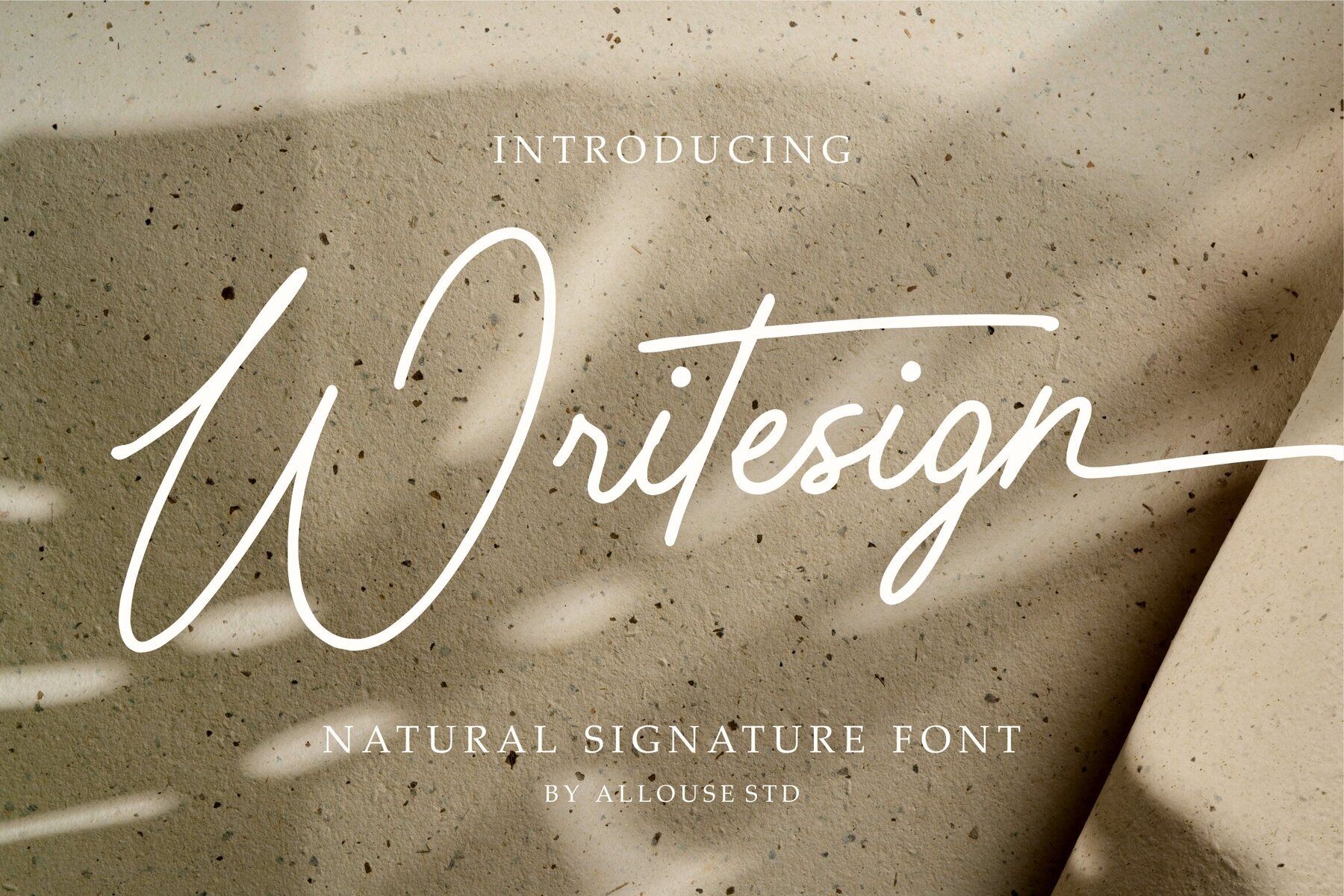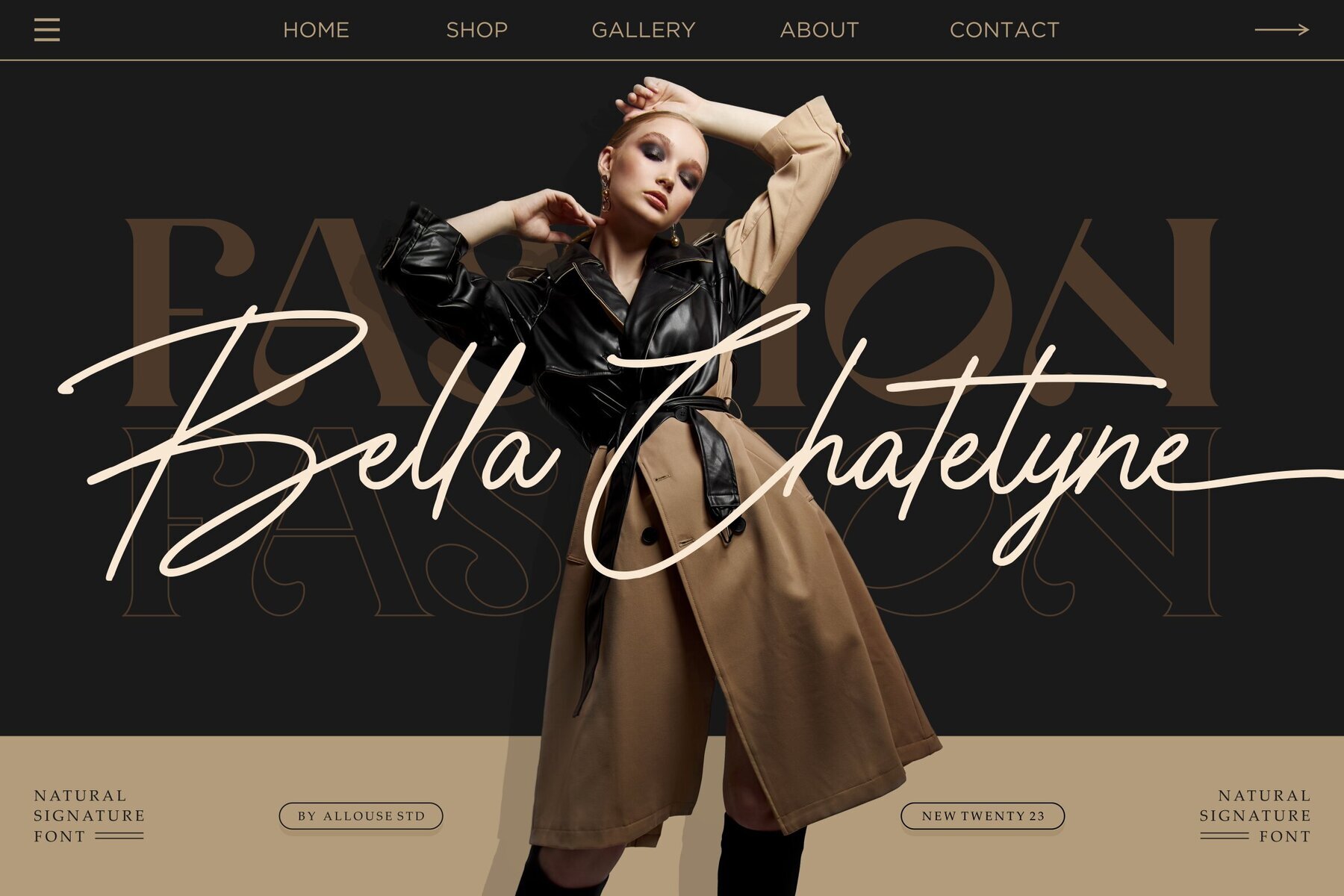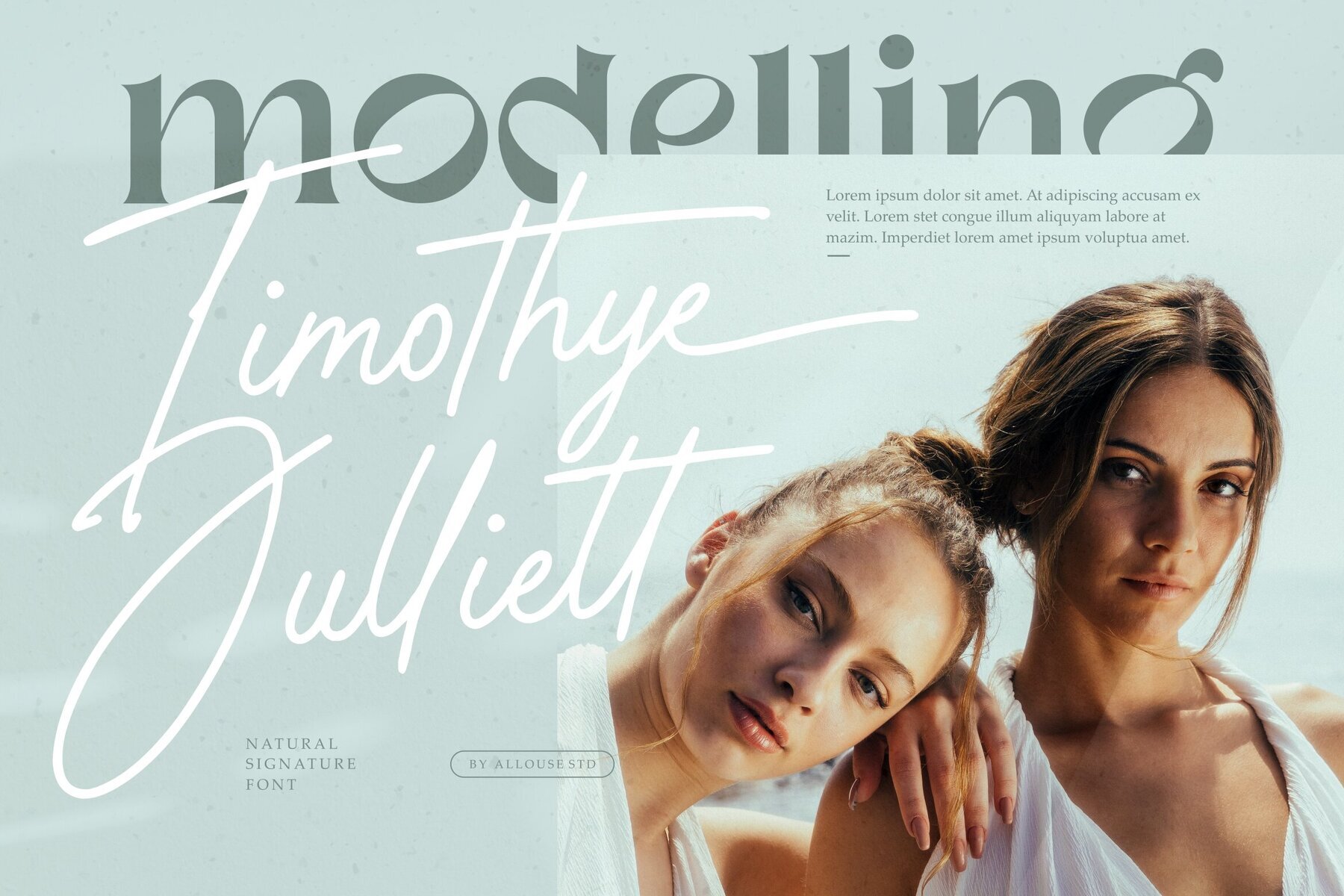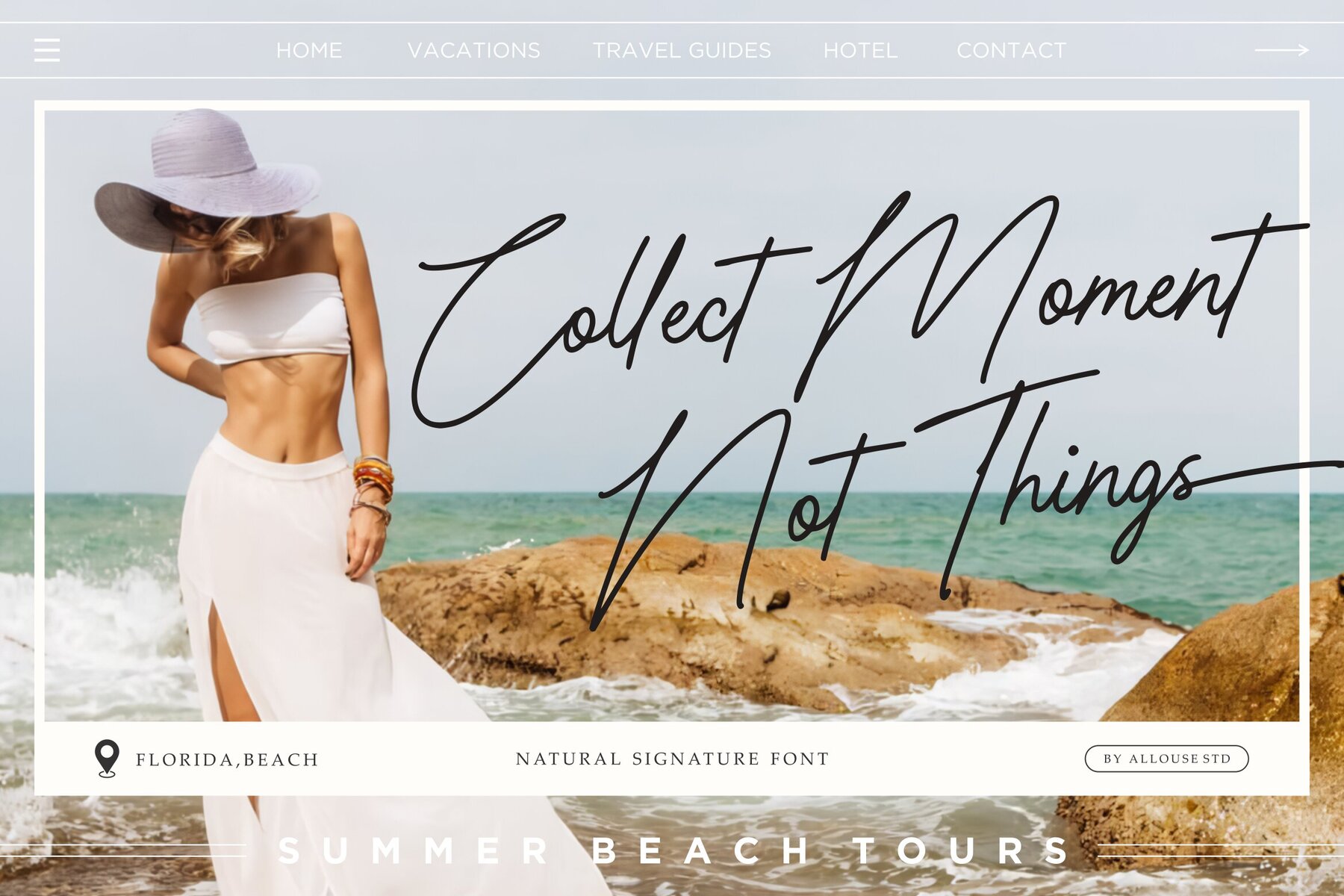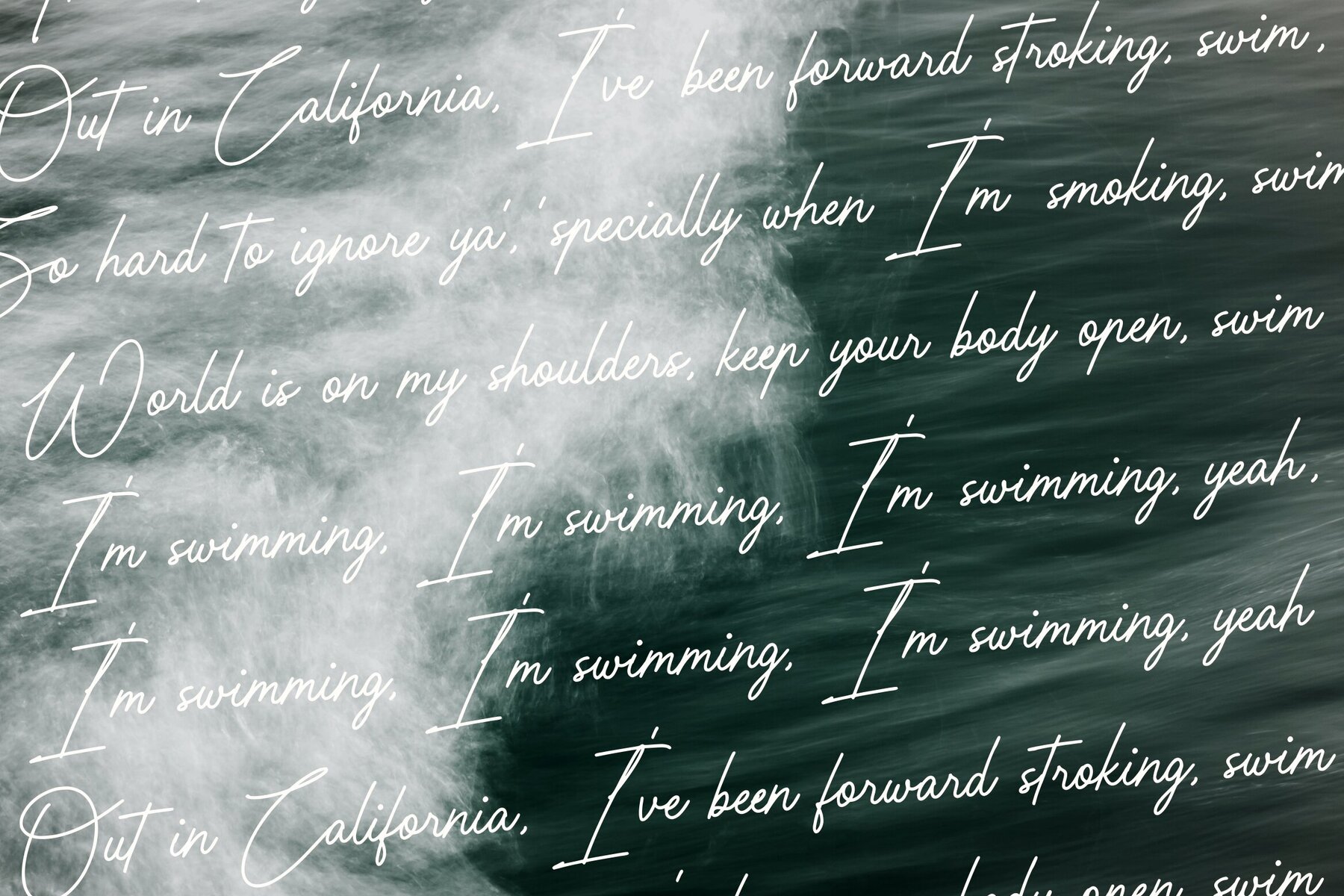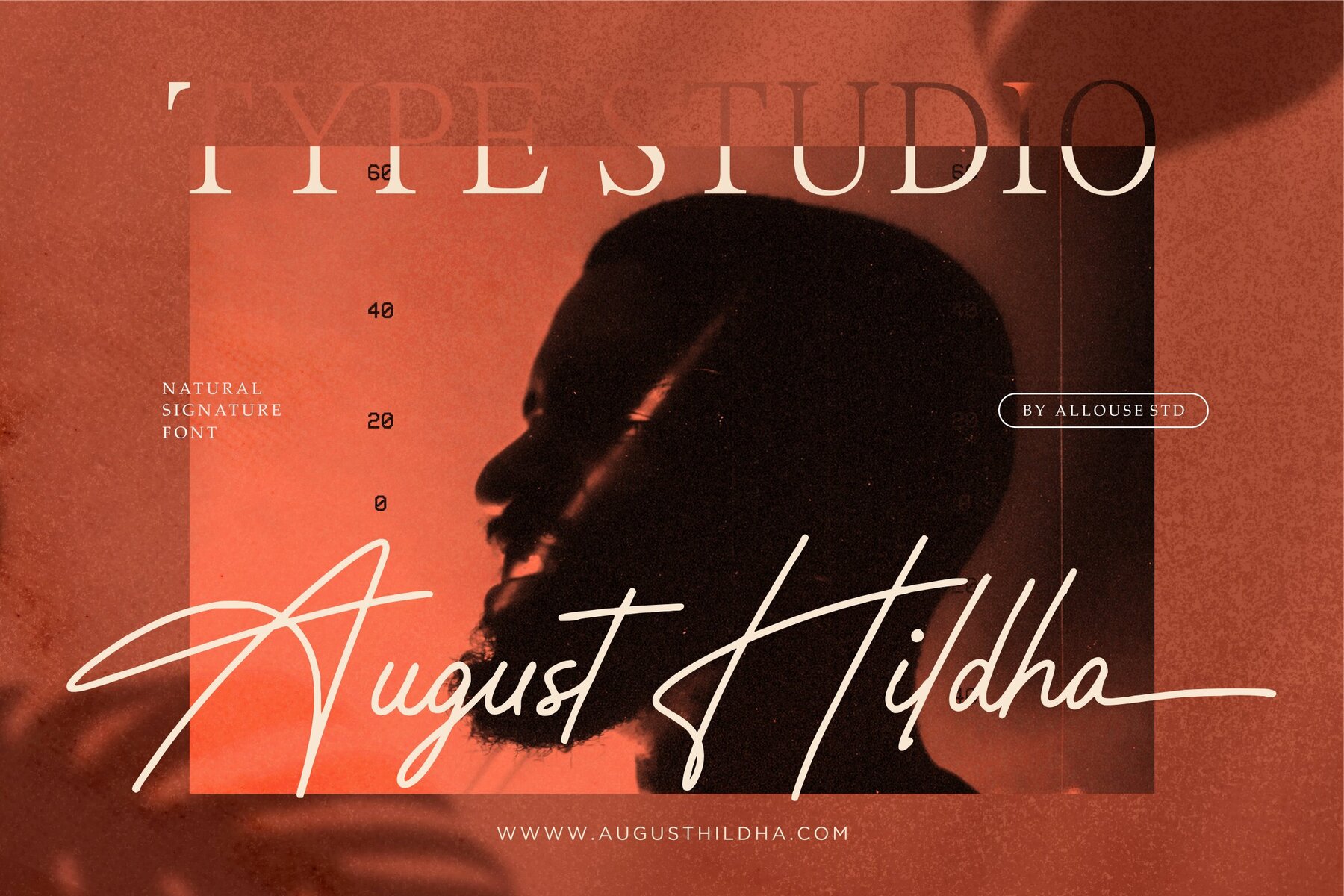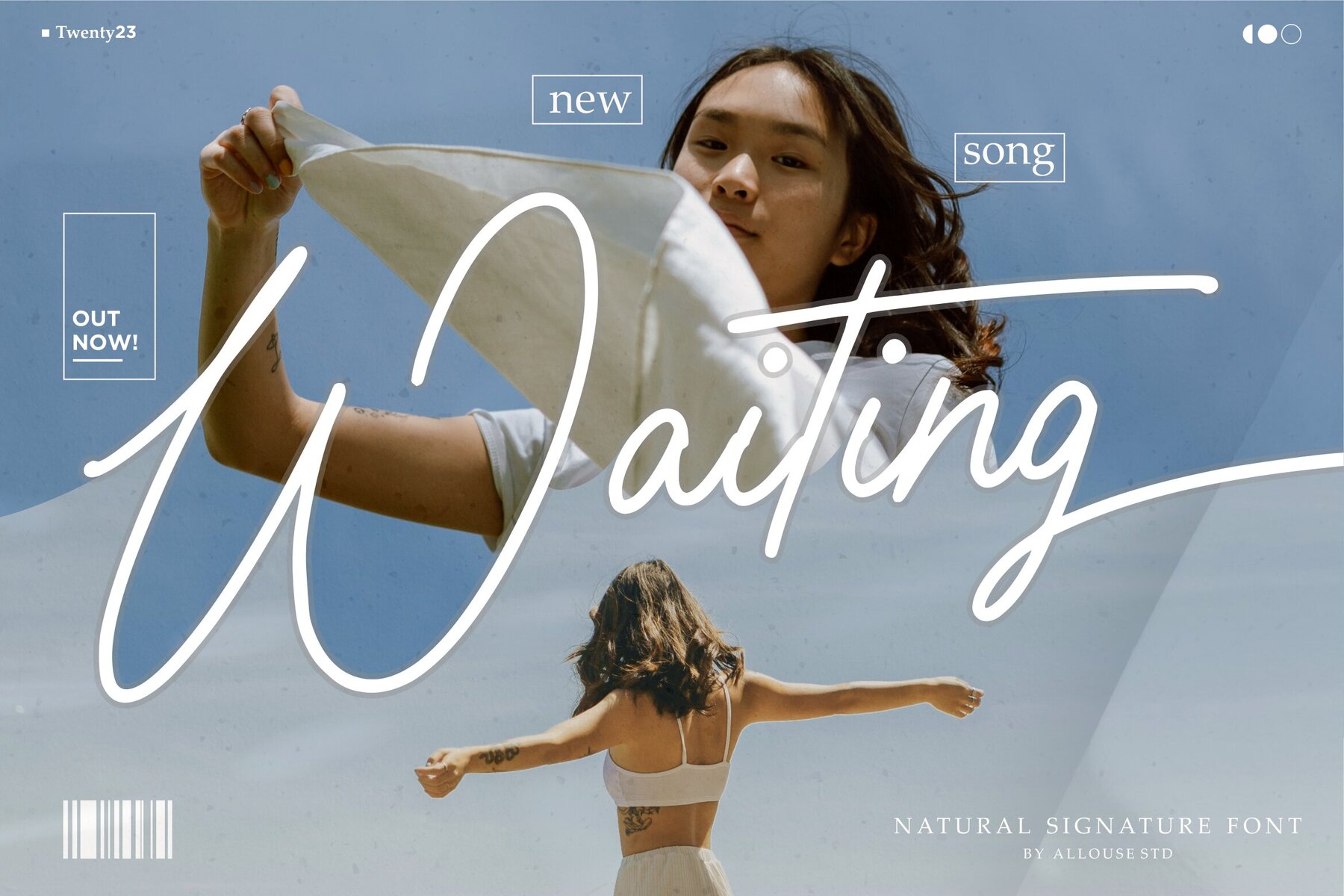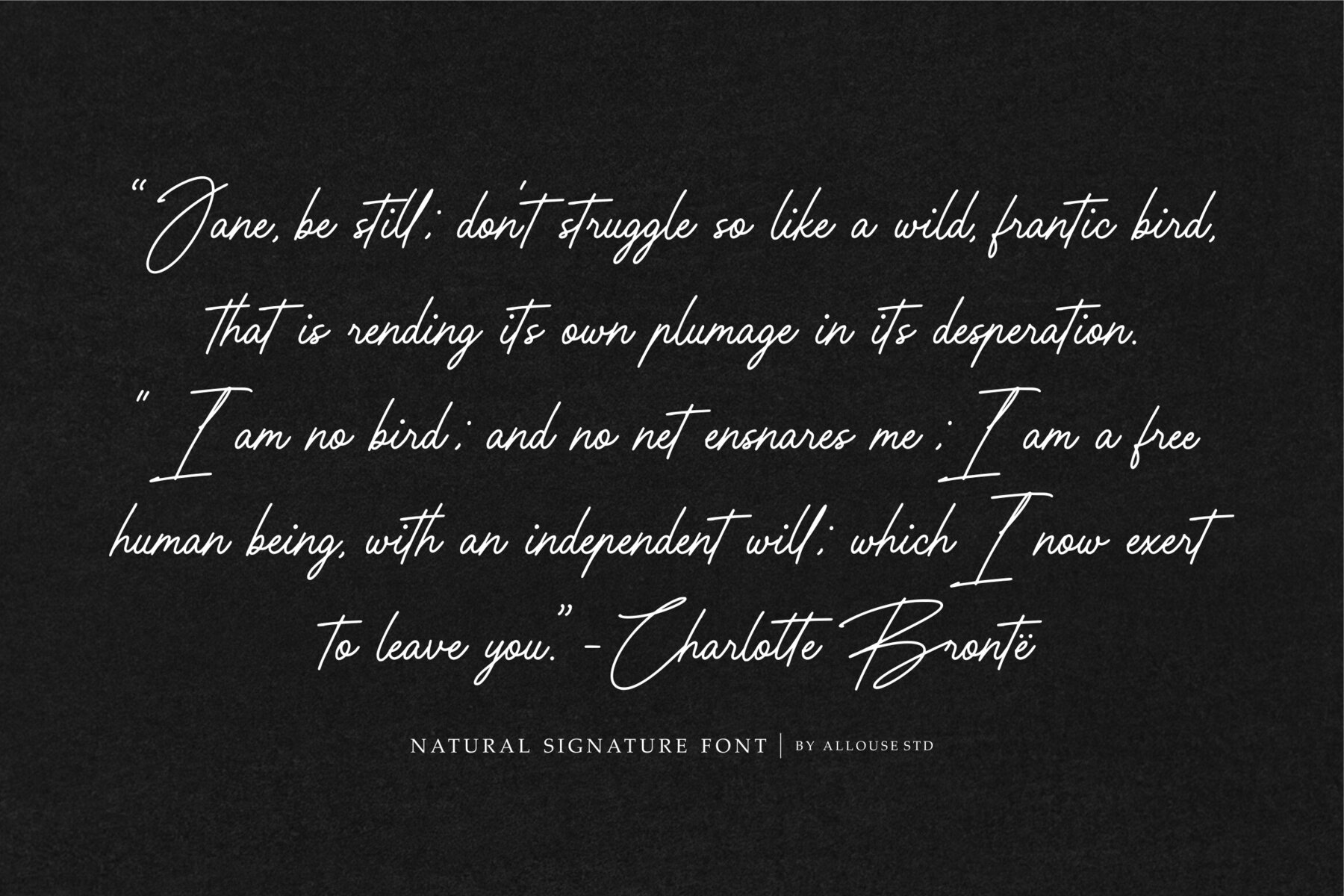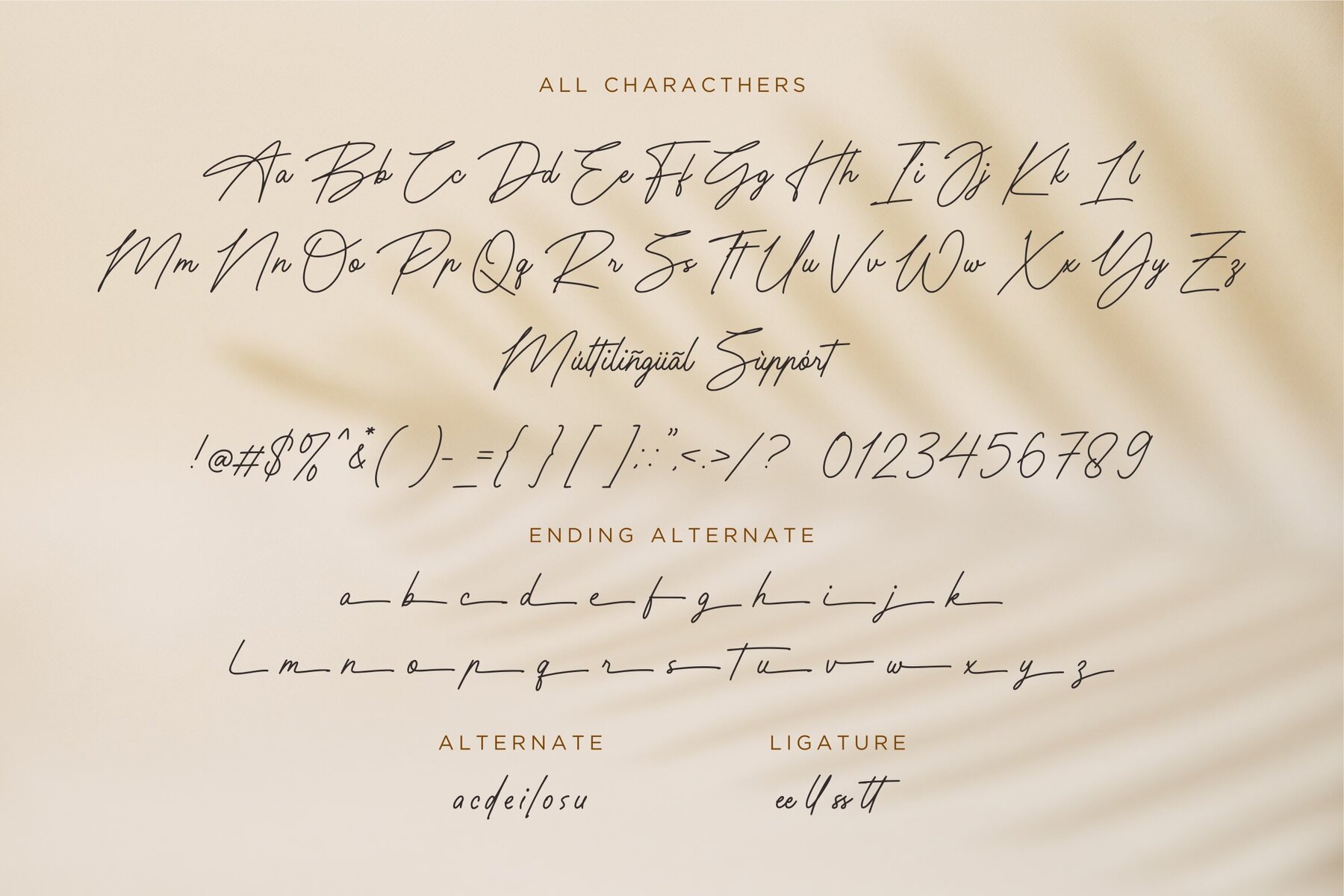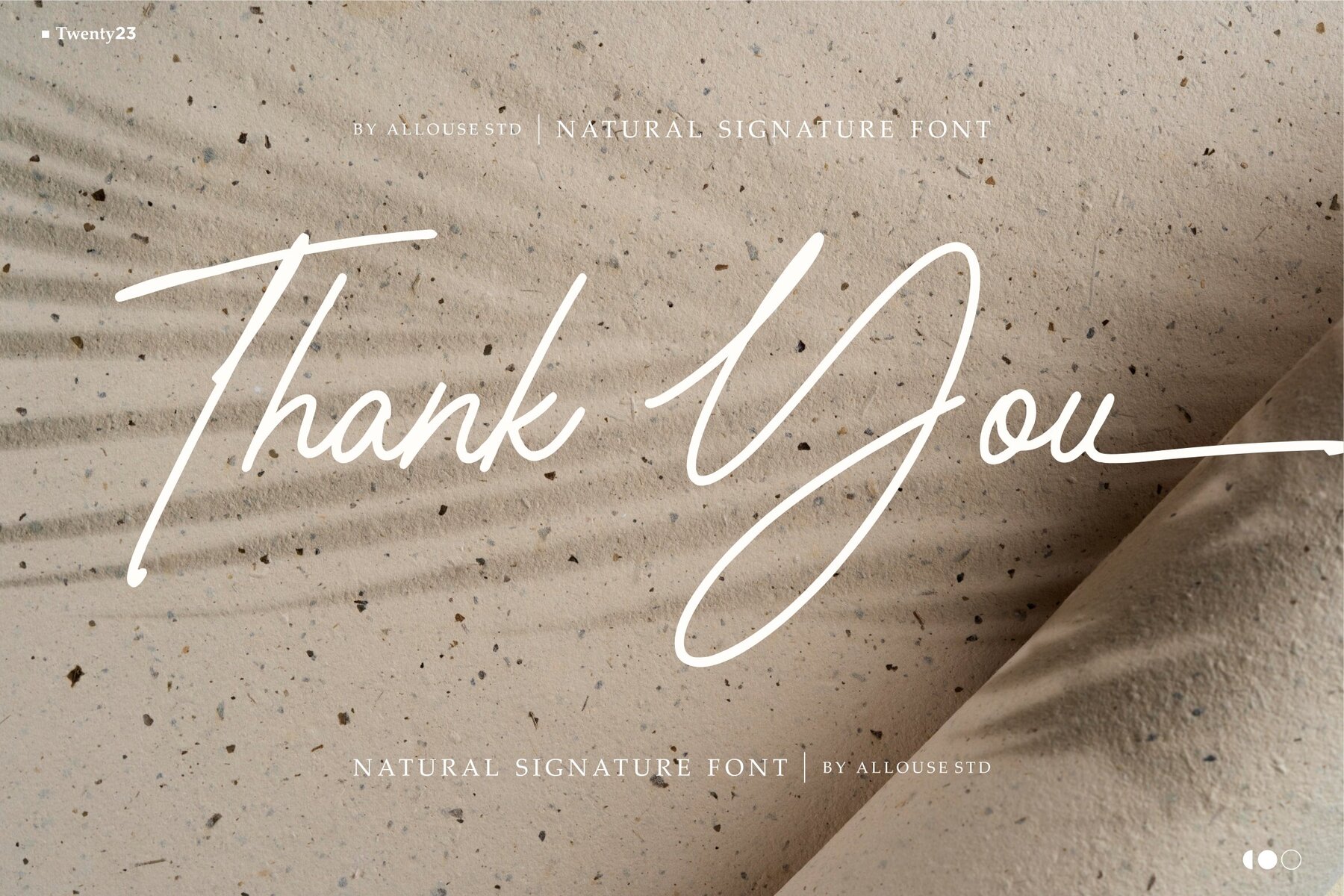
Writesign Font
Writesign Regular
Writesign is a beautifully crafted natural signature font ideal for a wide range of creative projects. It is perfect for use in product packaging, branding projects, magazines, social media, and weddings. This font also shines when used to express words elegantly against a background.Writesign: A Natural Signature Font for Diverse Applications